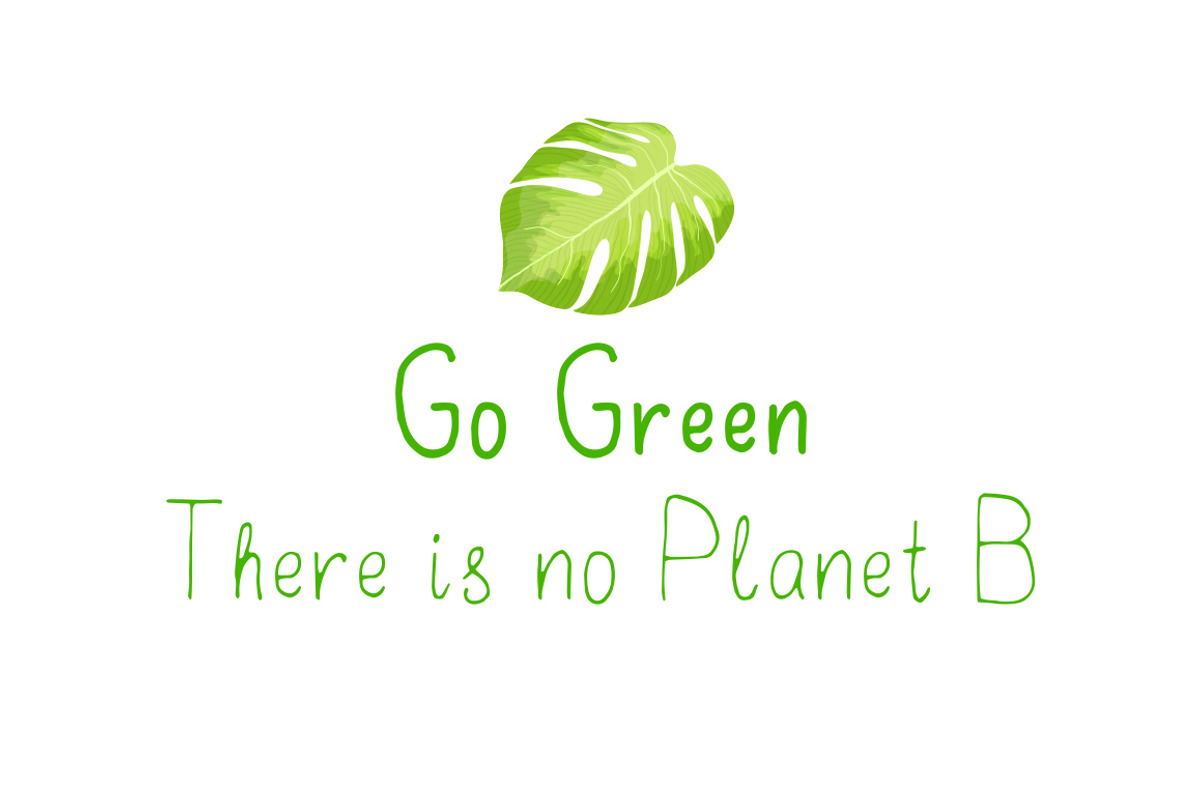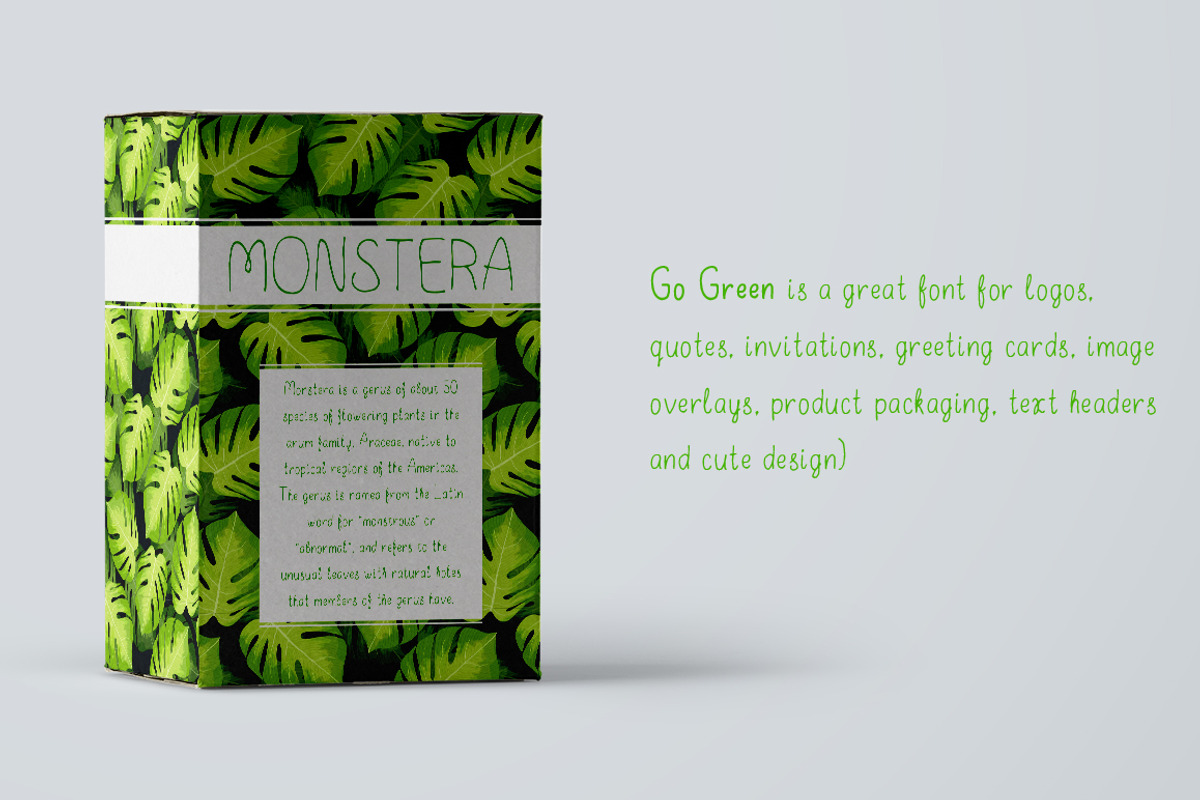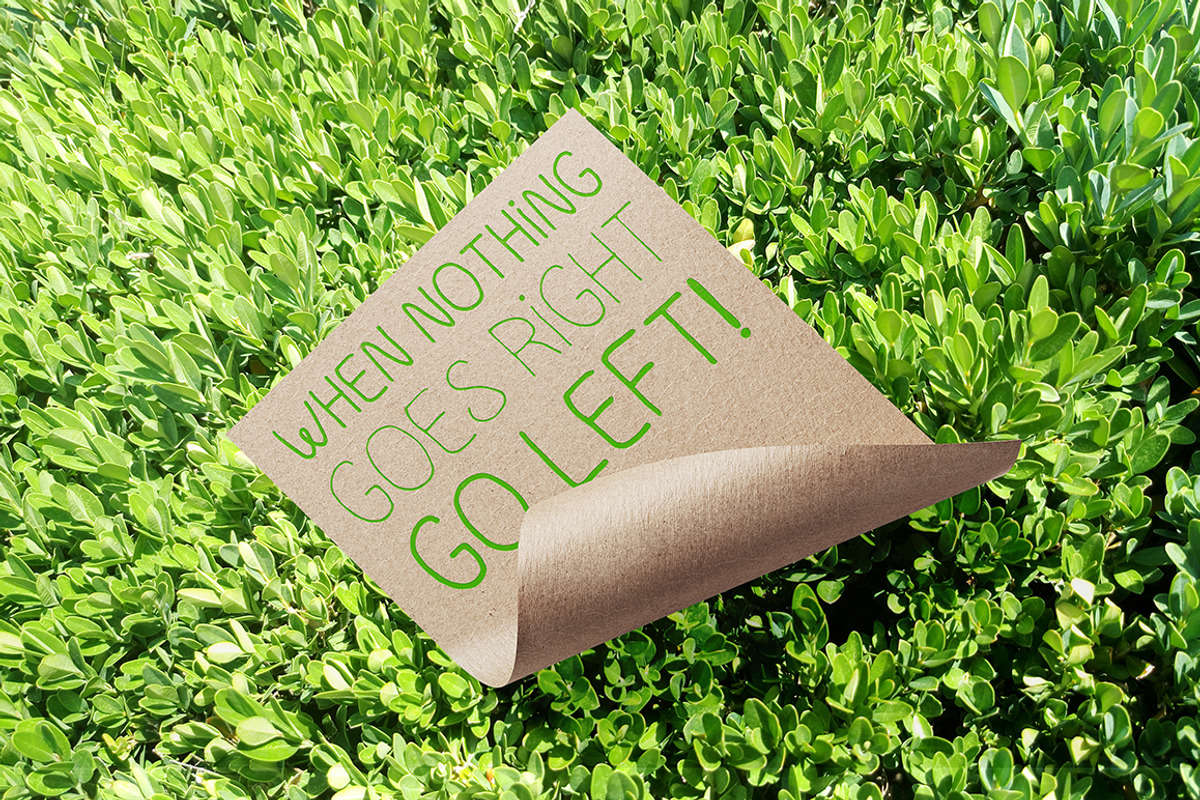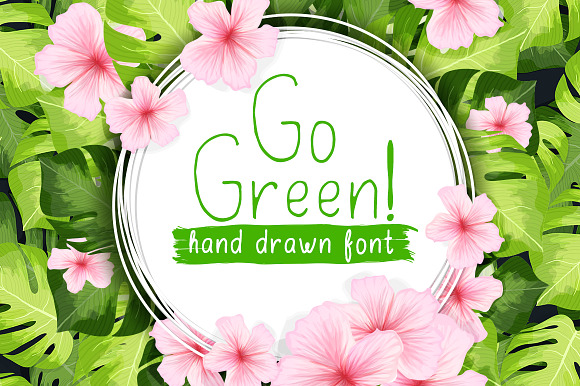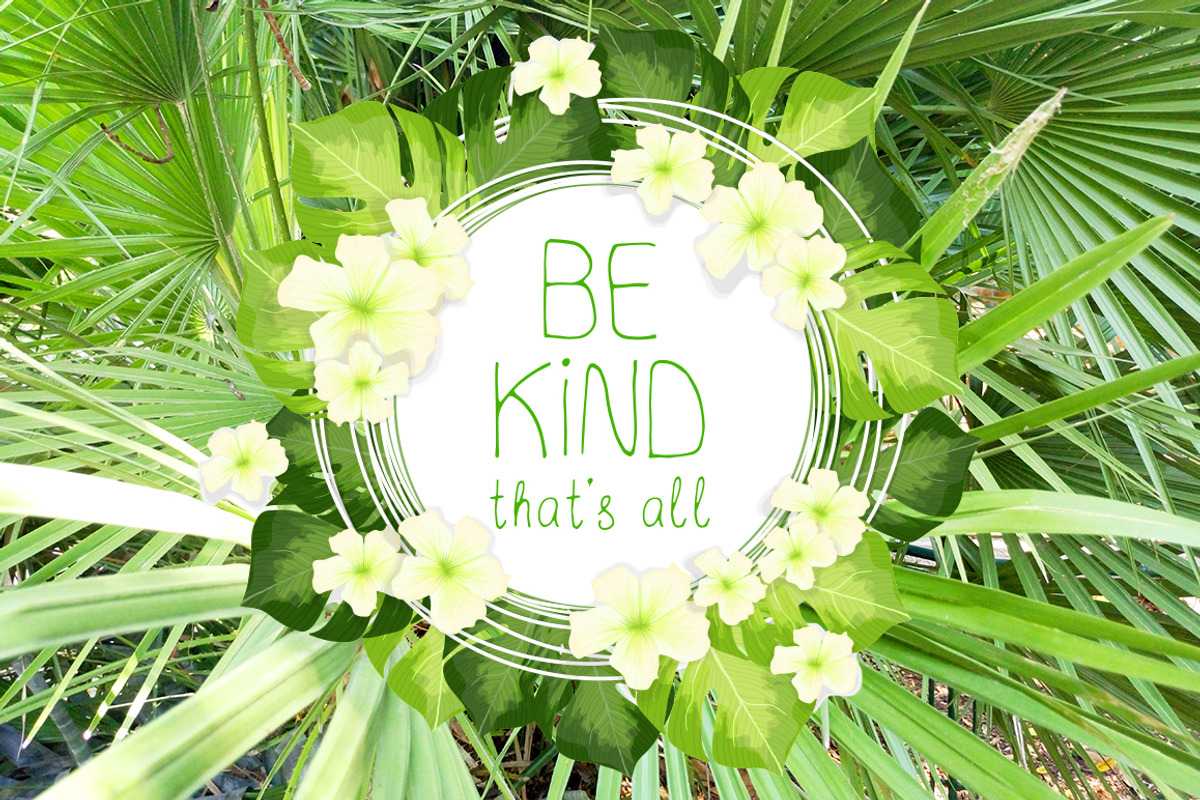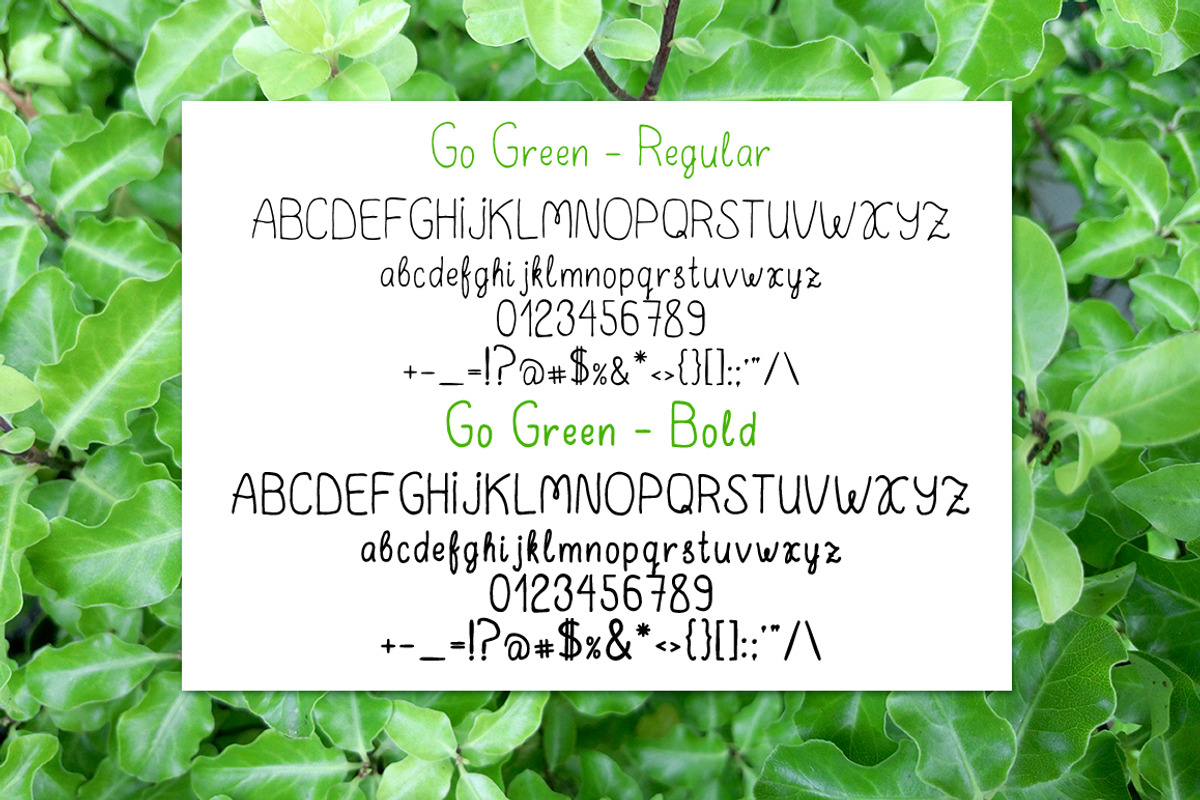
Go Green - handdrawn font
Go Green with 2 styles: Regular and Bold
- Go Green Regular
- Go Green Bold
Go Green - handdrawn font by ilonitta fits naturally into Branding, posters, packaging, typography.